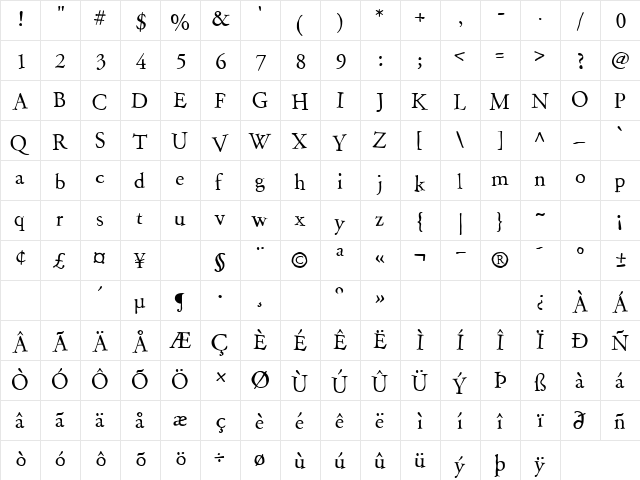
P22 Garamouche Regular Regular
Design Context for P22 Garamouche Regular Typeface
P22 Garamouche Regular takes a measured approach to typography — its balanced proportions and neutral character make it a reliable workhorse for both digital and print work.